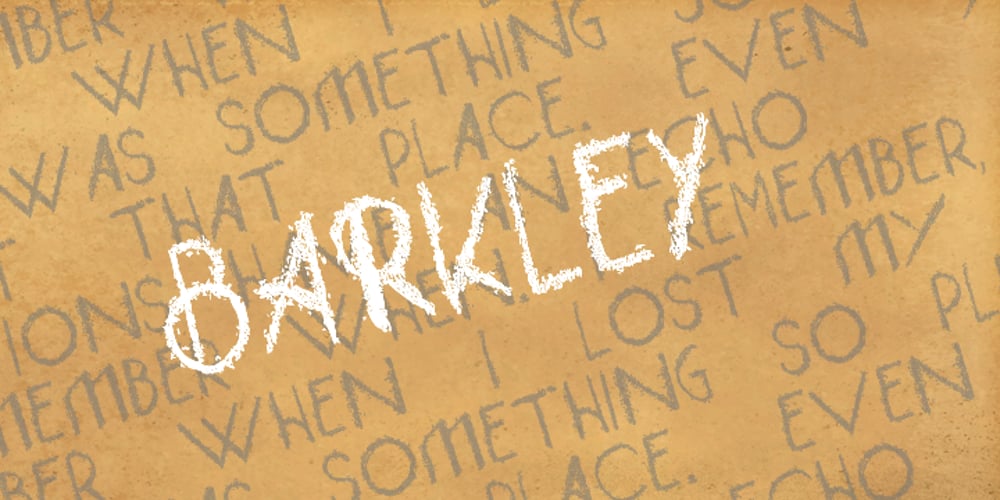
Barkley
Barkley font
Barkley Font Family was designed by published by AdultHumanMale. Barkley contains 1 styles and family package options. BARKLEY is a messy pencil drawn display font. It has over 200 glyphs and several variations on the standard alphabet and those extra pesky foreign features. I wanted it to look messy and rough but also with a little heart. Buy it, I know I might.